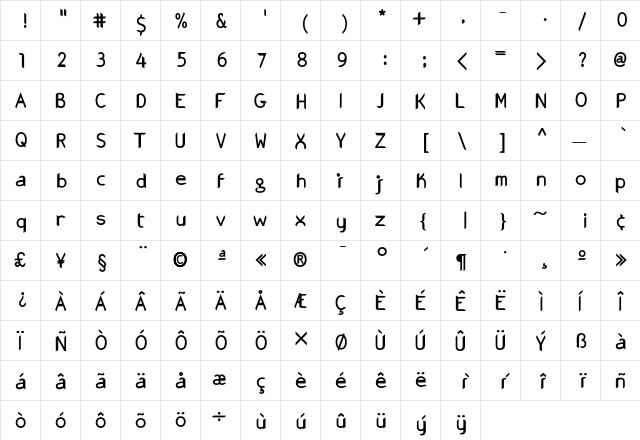
Gonza Bold
Design Context for Gonza Typeface
Gonza takes a measured approach to typography — its balanced proportions and neutral character make it a reliable workhorse for both digital and print work. The heavy weight commands attention and anchors typographic hierarchies.